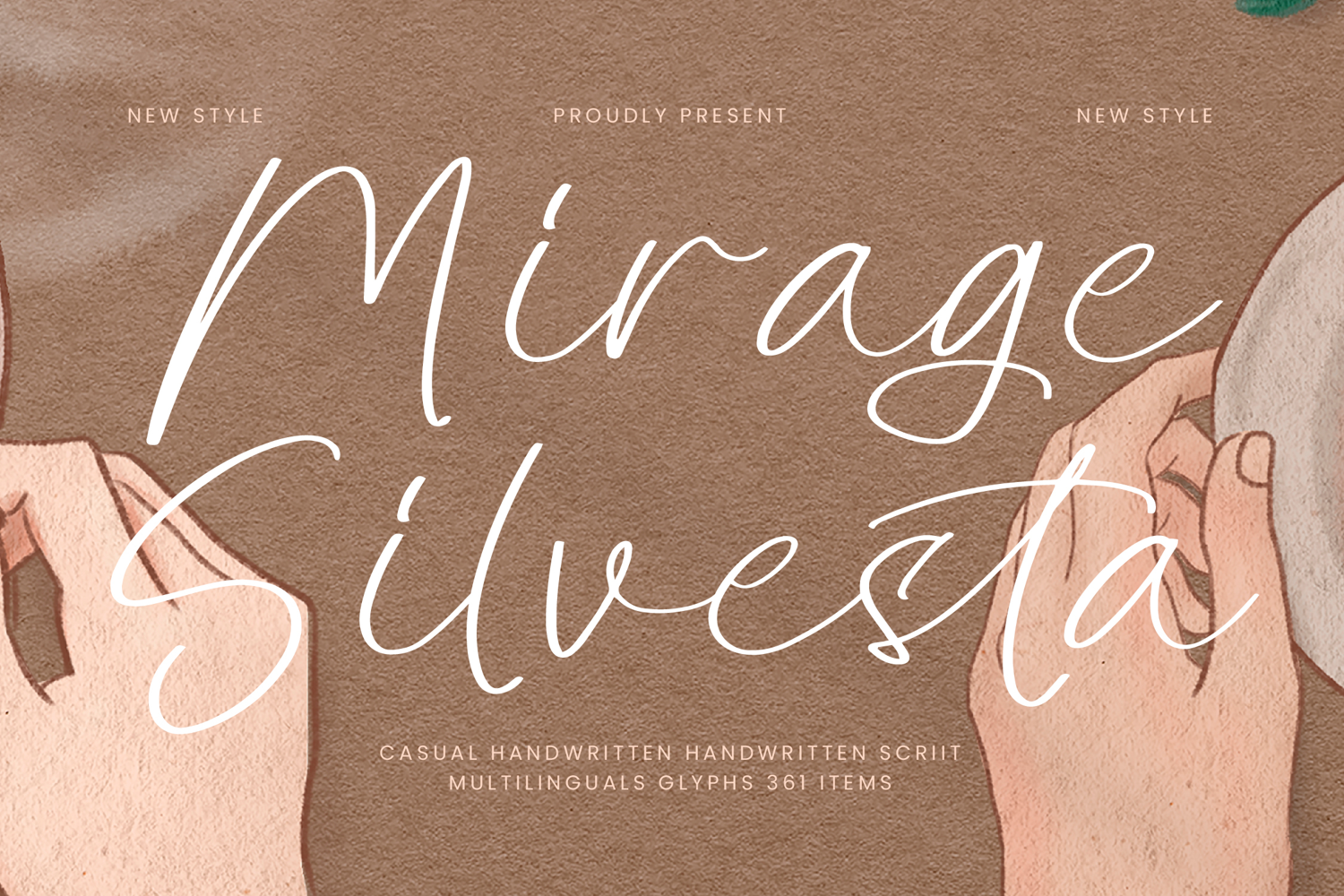
Mirage Silvesta
Mirage Silvesta - Casual Handwritten Script, from Integritype Studio, perfect for any project like: logos, branding projects, homewares designs, product packaging, mugs, quotes, posters, shopping bags, t-shirts, covers books, business cards, invitation cards, greeting cards, labels, photography, watermarks, special events and all your other luxury projects that require a premium taste.
Ligatures, Alternate & Swashes